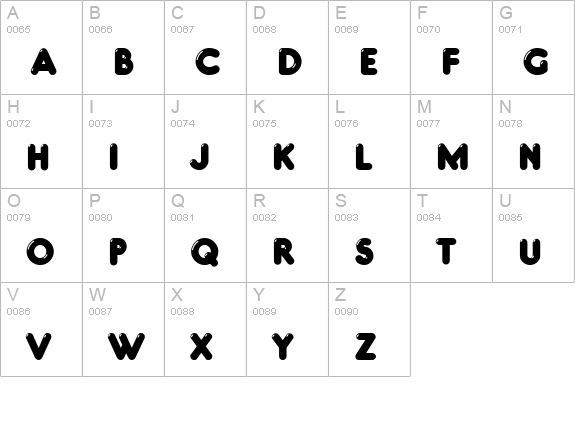
Glowworm MN Font Details
Glowworm MN font is a stunning display typeface that exudes a sense of elegance and sophistication. Its graceful curves and stylish letterforms make it perfect for adding a touch of class to any design project. With a delicate glow that seems to emanate from within, this font truly captures attention and creates a mesmerizing visual impact. What sets Glowworm MN font apart is not just its beauty, but also its versatility. Whether used for headlines, logos, invitations, or any other creative endeavor, this font shines brightly and commands attention. Its timeless appeal makes it suitable for a wide range of applications, from branding to editorial design. The best part? Glowworm MN font is completely free to download at FontsMarket.com. Yes, you read that right – you can get your hands on this exquisite font without spending a dime. So why wait? Unleash your creativity and elevate your designs with the enchanting Glowworm MN font today!